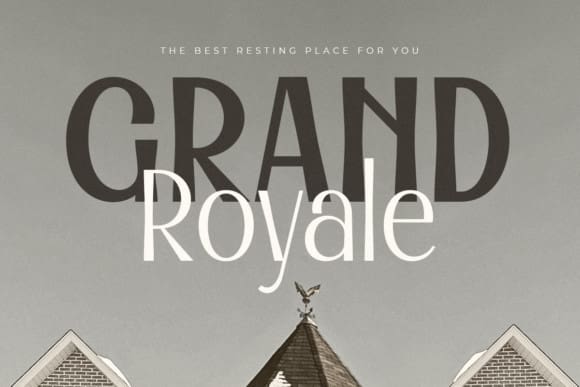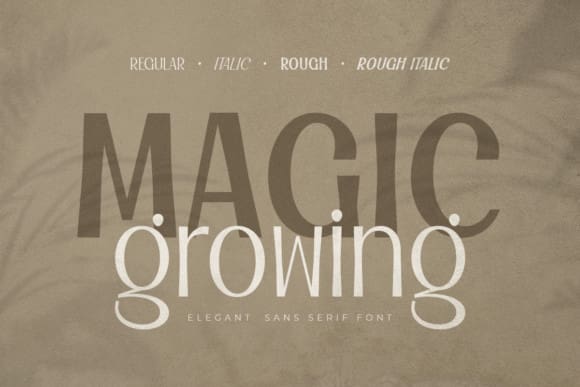
Magic Growing Font
Magic Growing Font, A Sans serif that we created special for elegant branding needs, with extra style will be ready to add value to your brand. It is so nice to leverage designers or product owners who need solutions to make their designs look more elegant and modern.